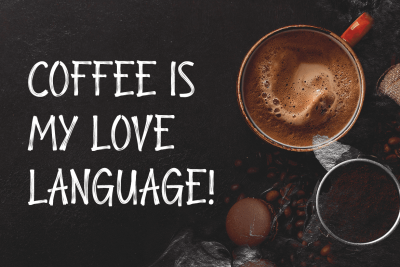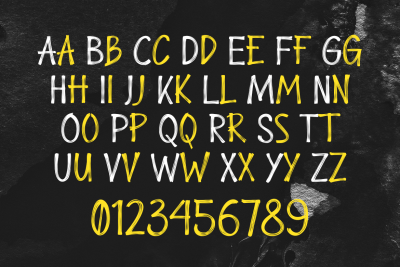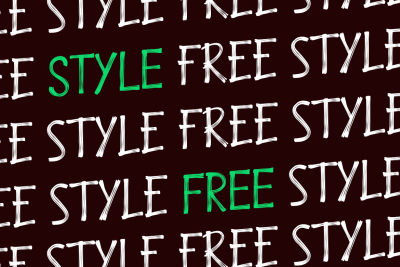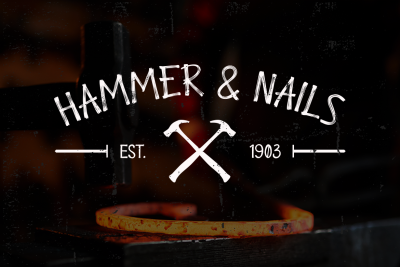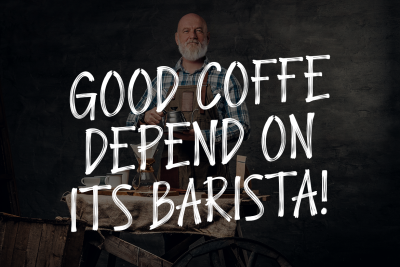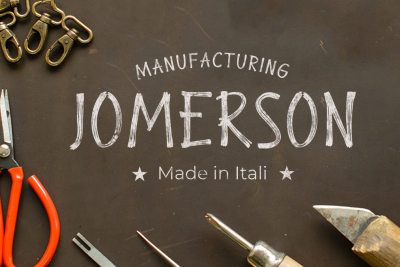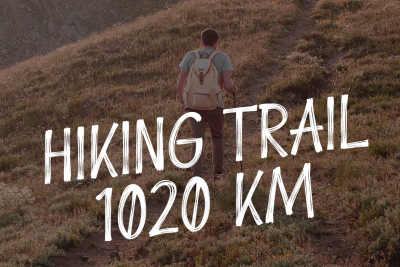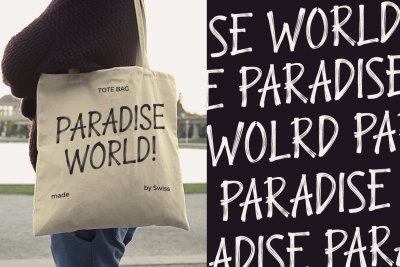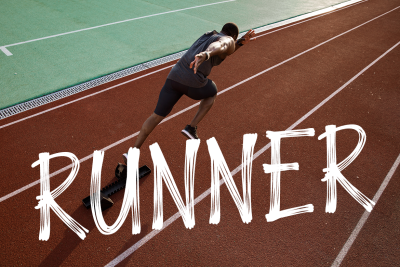
handwriting font climate change
Climate Change
Handwriting font Climate Change is a bold, impactful typeface created to capture attention. This font features a hand-drawn look with rough, uneven strokes, resembling brush or chalk lines. Moreover, its rugged and dynamic style is perfect for projects that convey urgency and authenticity. Climate Change combines a distressed look with boldness, giving it a gritty feel well-suited to themes of activism and awareness.
Additionally, the brush-like texture of each letter adds depth and movement, making the font visually engaging. Furthermore, Climate Change is both expressive and legible, ensuring messages are clear and impactful. Whether used in digital or print, this font quickly creates a connection with the audience and encourages them to pay attention.
Handwriting Font Climate Change Ideal Users
Climate Change is ideal for designers, activists, and creators focused on themes like awareness, activism, and environmental issues. For instance, designers working on posters, banners, or social media graphics for campaigns will find this font especially fitting. Its bold, hand-drawn style resonates with audiences who value authenticity and action, making it an excellent choice for raising awareness.
Moreover, non-profit organizations and activist groups can also use Climate Change in branding and promotional materials. Its strong, visually striking look is perfect for event posters, informational flyers, and website headers that need a sense of urgency. This font helps convey messages with power, ensuring they stand out in any medium.
Additionally, content creators and social media managers focusing on topics like climate change, human rights, or social justice will benefit from this font. It’s ideal for graphics that need to capture attention quickly and deliver a strong message. Climate Change’s raw, rugged design works well with bold, emotional messaging, helping inspire viewers to take action or learn more. With its distinctive look, handwriting font Climate Change is the perfect choice for projects seeking to leave a lasting impression while conveying urgency and purpose.